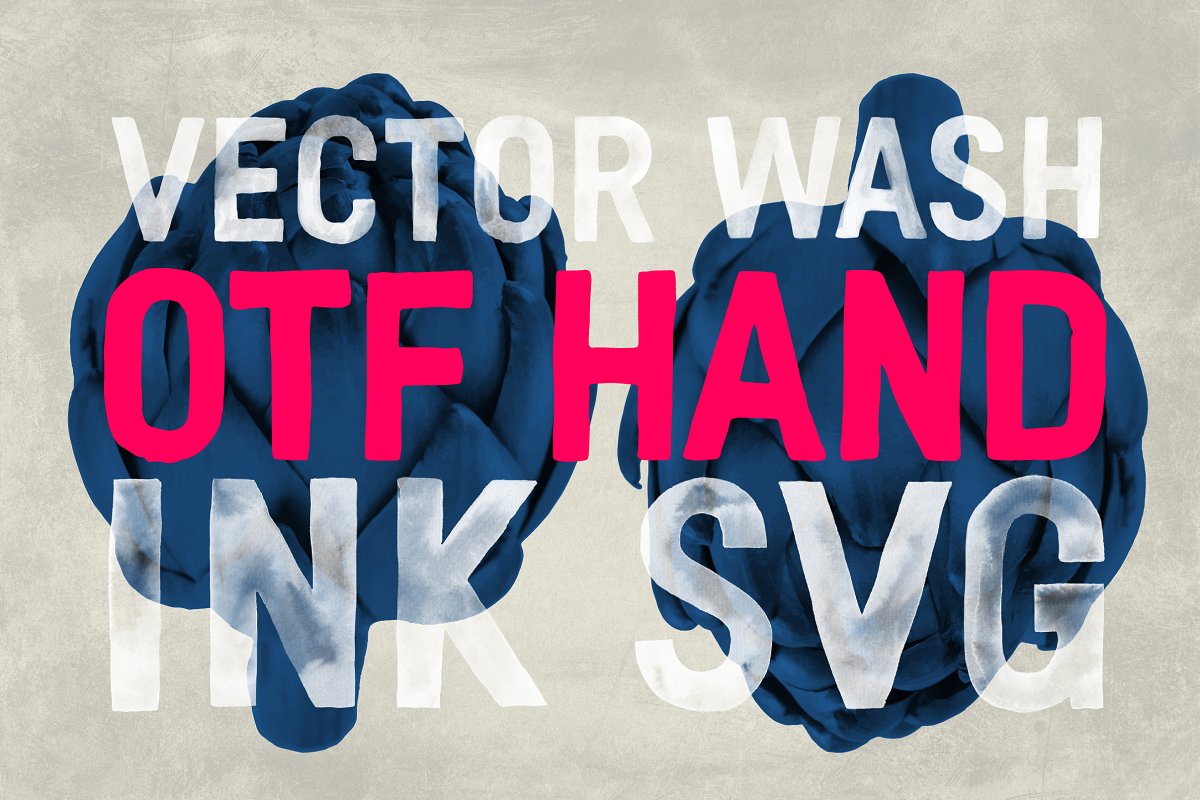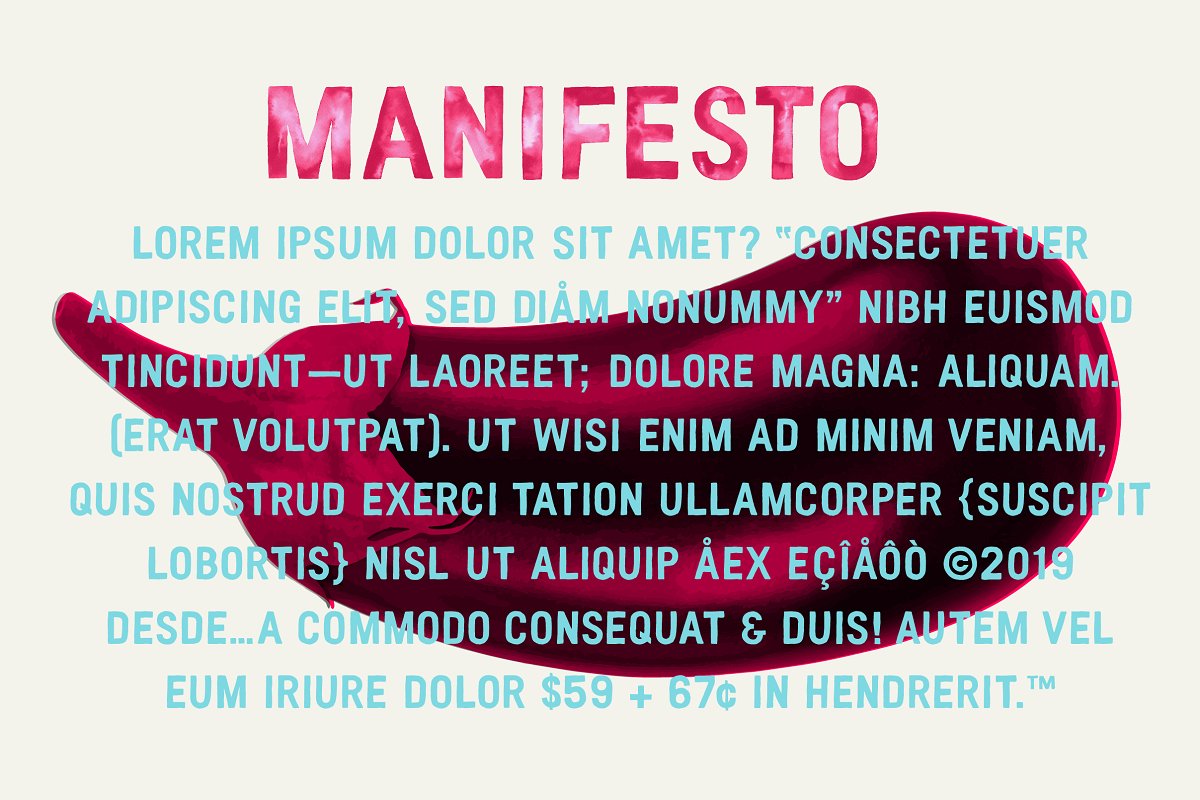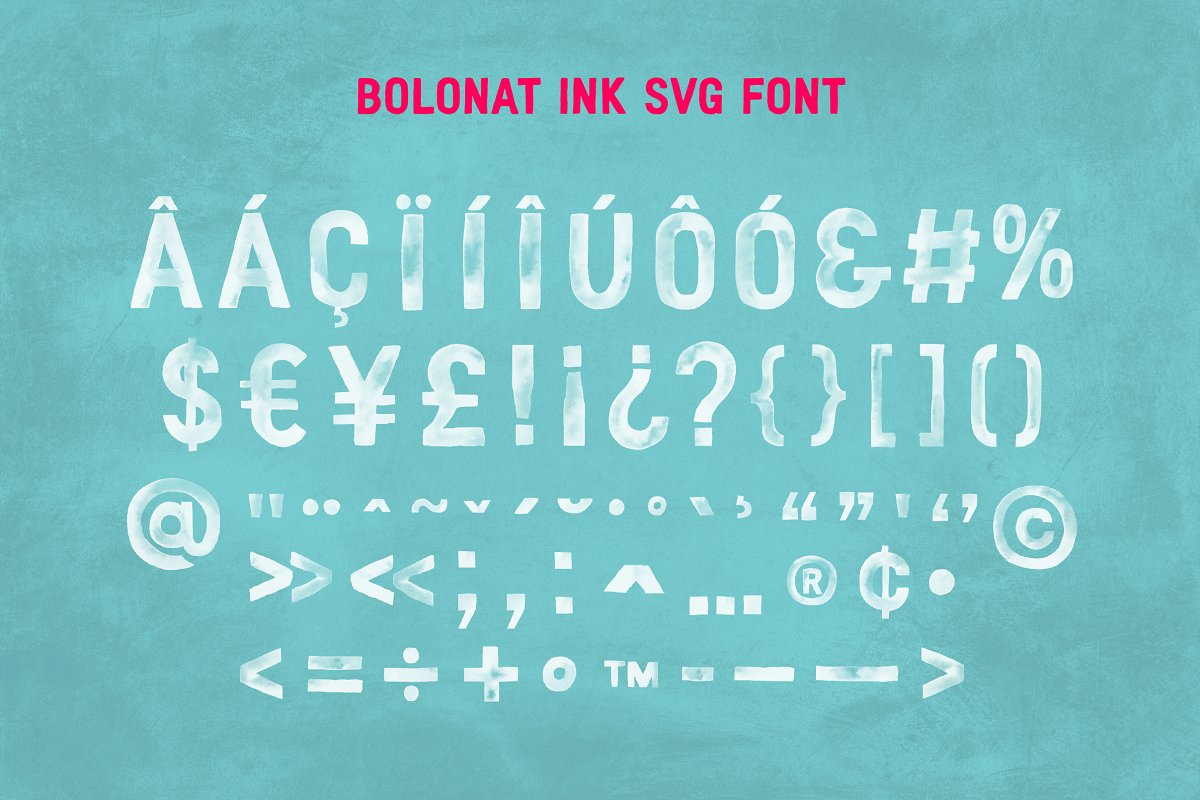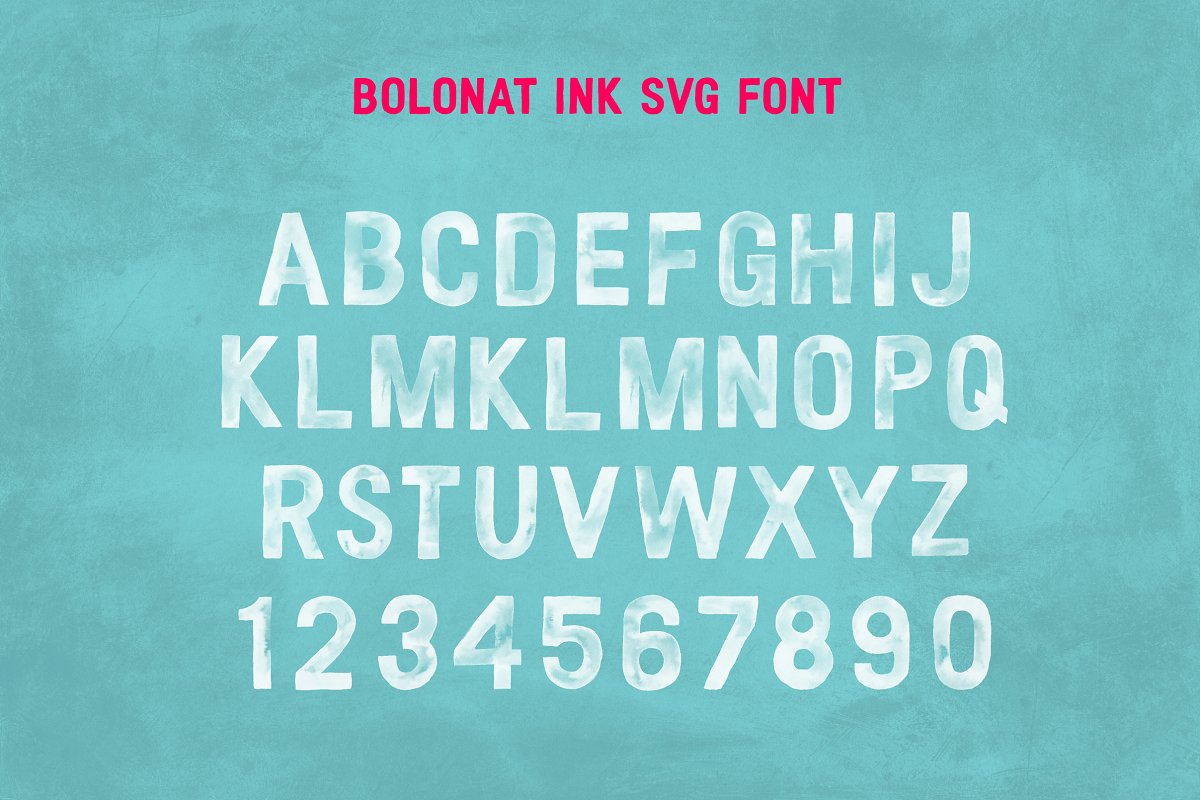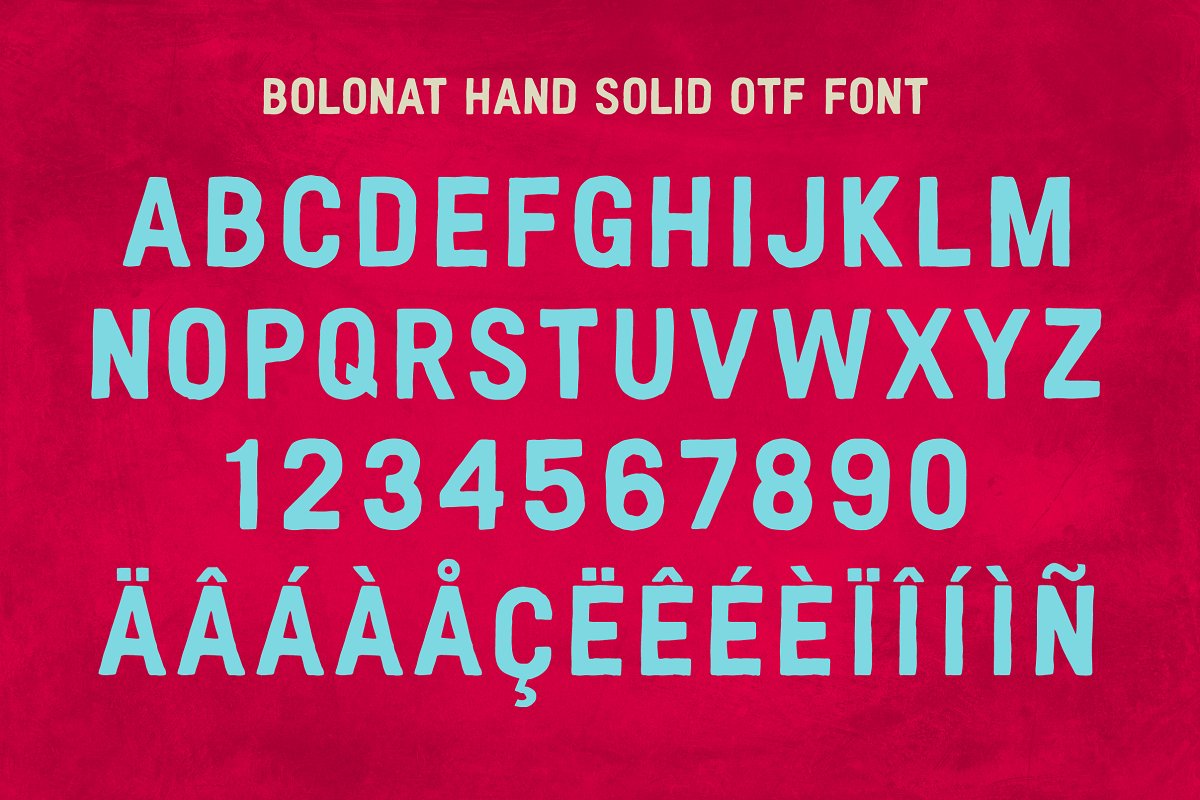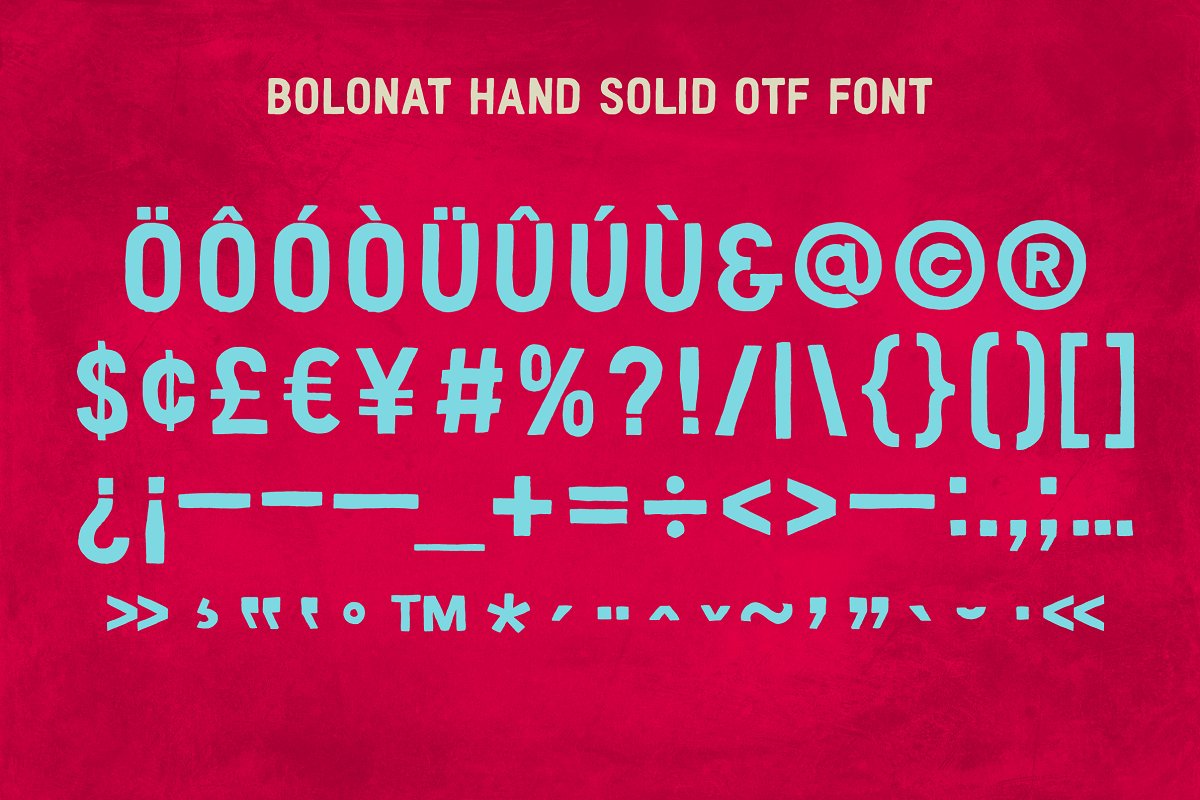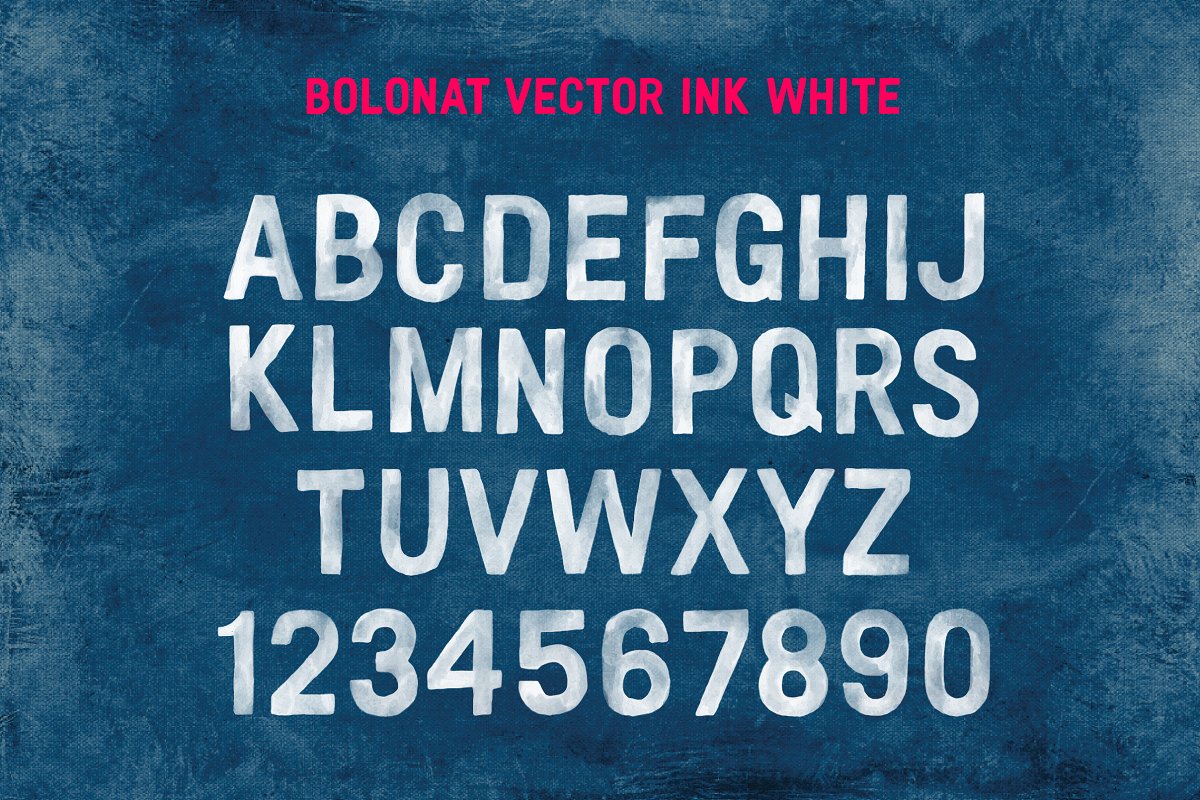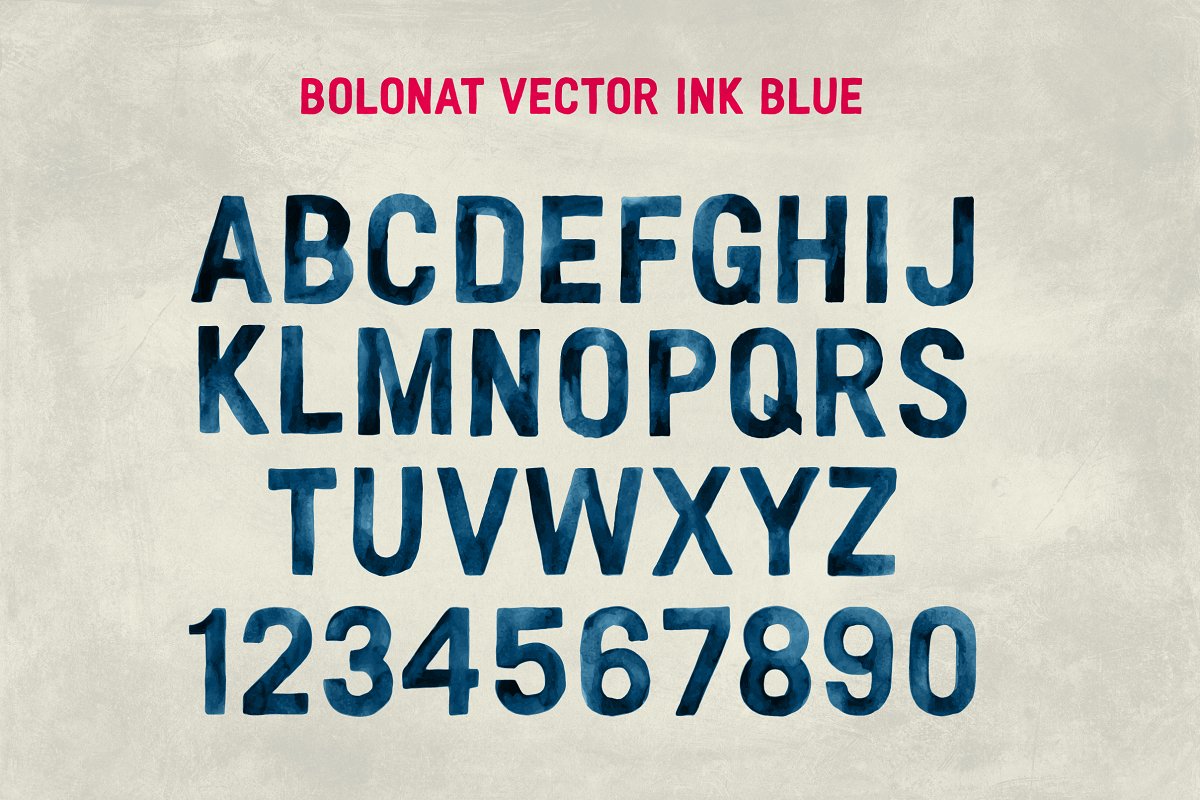
About the Bolonat Watercolor SVG OTF Font
Based on a hand-painted font I did for a restaurant in NYC, this Bolonat Redux package contains both the OTF Solid version and SVG Ink Version with an extended Diacritic Glyphs and Punctuation, As an added bonus I’ve included the original hand painted EPS Blue and EPS White versions of the font, Pre-kerned and spaced, each glyph is user ready with a few characters needing kerning depending on end user preference
THE BOLONAT FAMILY:HAND – A solid version of the original watercolor glyphs with Extended Diacritics and Punctuation, (Included)INK – An SVG re-worked version of the original watercolor glyphs with Extended Diacritics and Punctuation, (Included)REDUX – Includes the above OTF fonts with extended Diacritics and Punctuation plus the original White EPS and Blue EPS water color glyphs